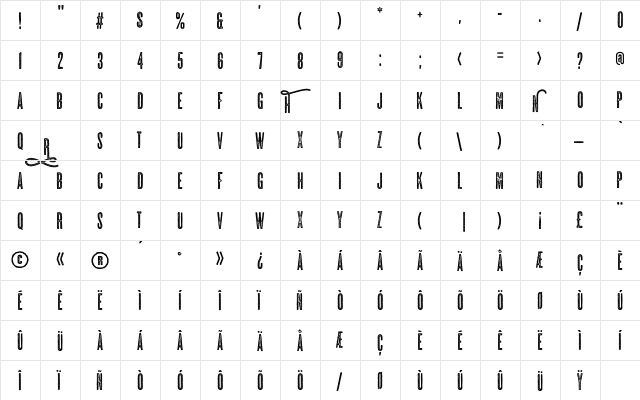
Huntress Regular
| Foundry | Clement Nicolle - StereoType |
| Designer | Clement Nicolle |
Design Context for Huntress Typeface
Huntress is a composed and adaptable typeface that performs quietly and consistently across a wide range of design contexts.